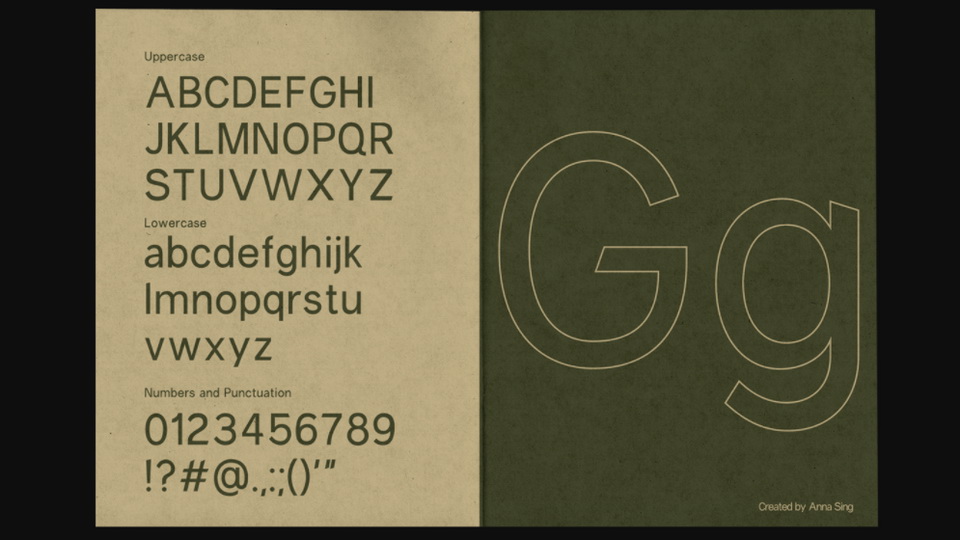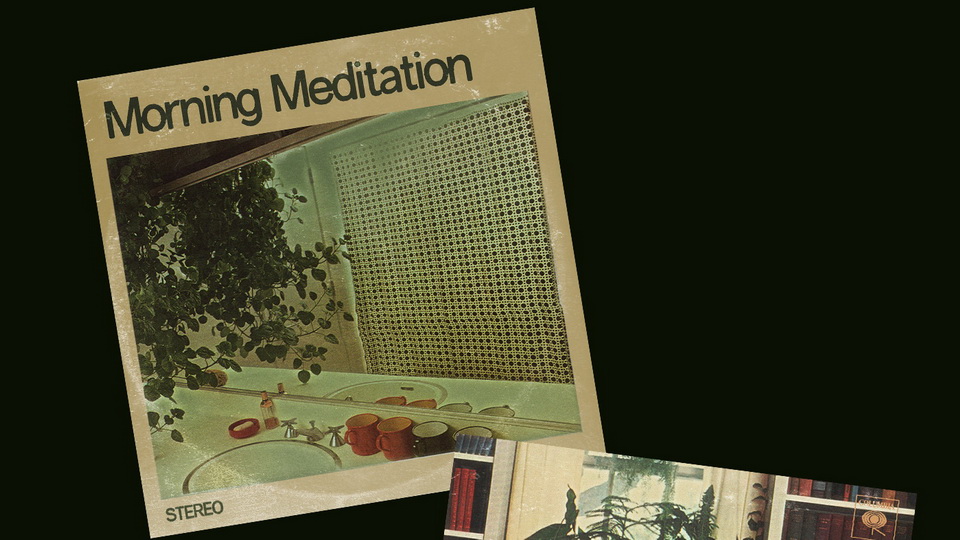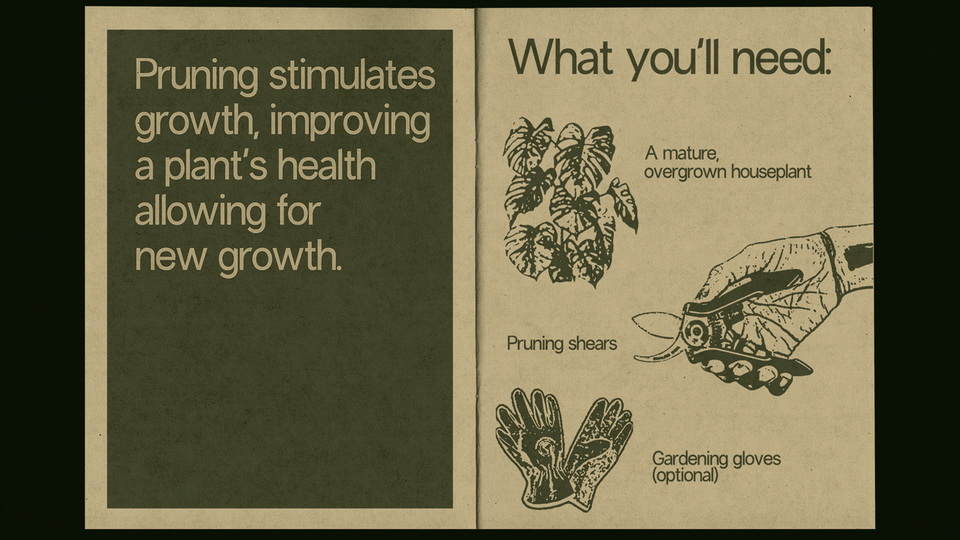
Prune is a sans serif typeface. Part of the senior thesis Greenhouse, Prune is the first of many typefaces inspired by houseplants.
Prune exemplifies the bare necessities of a typeface, much like a pruned plant. Trimmed serifs and sharp finials enable Prune to grow more fruitful typefaces, coming this 2021 spring season.